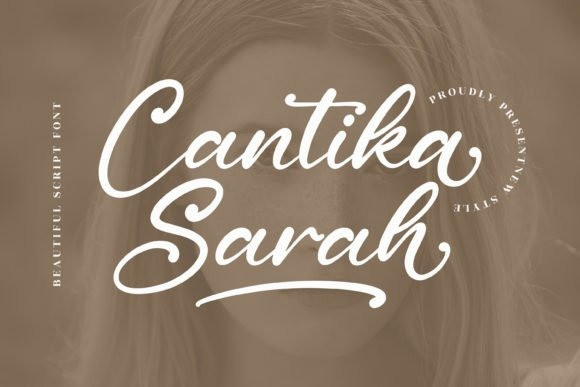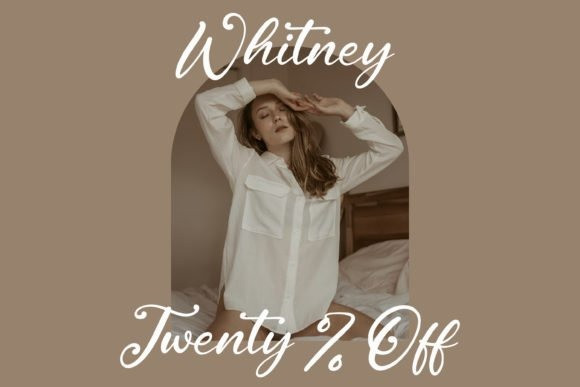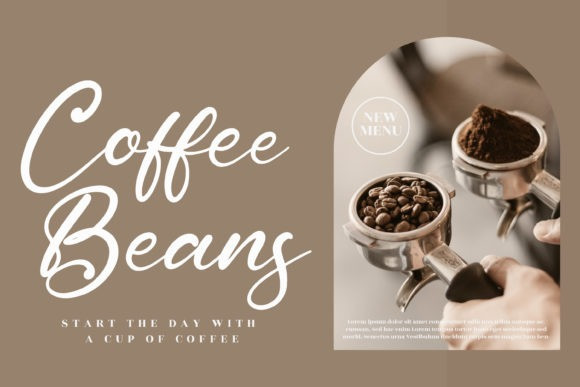
Cantika Sarah Font
Cantika Sarah is a luxurious and delicate calligraphy typeface with characters that dance along the baseline. It will add a luxury spark to any design project that you wish to create! This font is PUA encoded which means you can access all of the amazing glyphs and ligatures with ease!